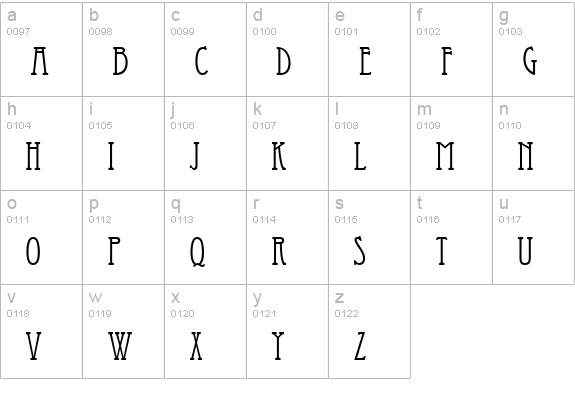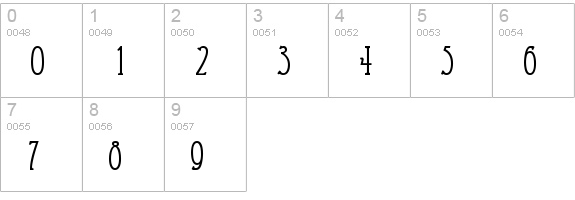
Economicals Font Details
Economicals font, a modern and sleek typeface, is the perfect choice for any design project that requires a professional and contemporary look. With its clean lines and sharp edges, this font exudes confidence and sophistication. What sets Economicals font apart from other fonts is its availability as a free download. That's right, you can freely access and download this incredible font at FontsMarket.com. Whether you're a student, a professional designer, or simply someone who appreciates high-quality fonts, Economicals font is a valuable addition to your collection. This font is highly versatile and can be used in a wide variety of design projects, such as logos, branding materials, websites, advertisements, and more. Its elegant and legible letters make it easy to read, ensuring that your message is conveyed effectively to your audience. Economicals font also offers a wide range of weights and styles, allowing you to play with different variations and create unique and visually appealing designs. Whether you prefer a bold and impactful statement or a more subtle and sophisticated approach, this font has got you covered. Not only does Economicals font look great on screen, but it also prints beautifully, making it an excellent choice for both digital and print projects. Its attention to detail and high-quality design ensure that your final product will always look professional and polished. So why wait? Take advantage of this amazing opportunity to enhance your design projects with Economicals font. Download it for free today at FontsMarket.com and see the difference it can make in your next project.